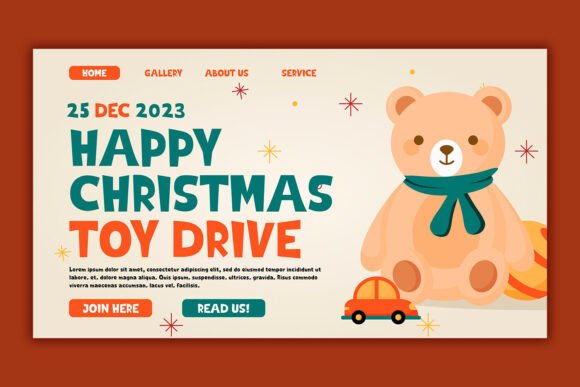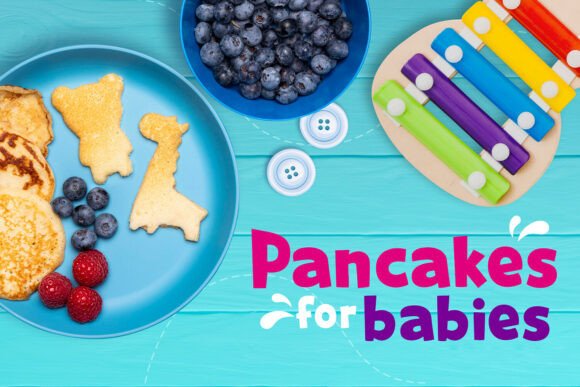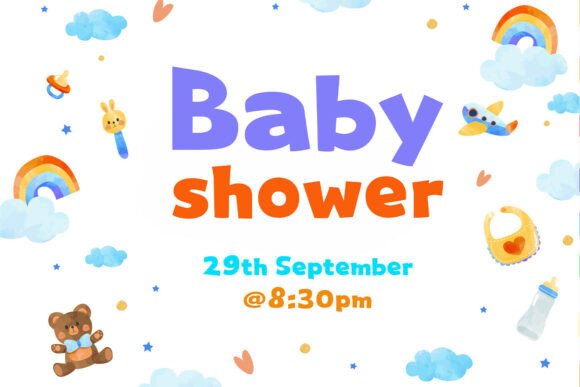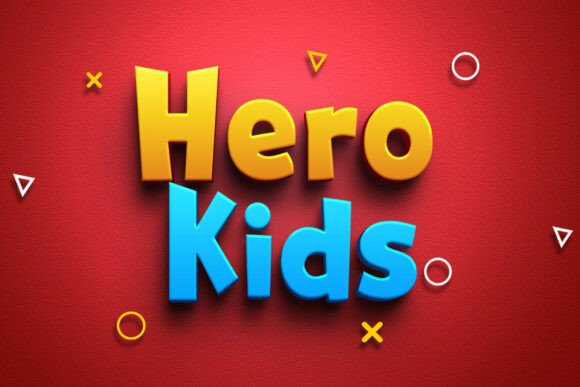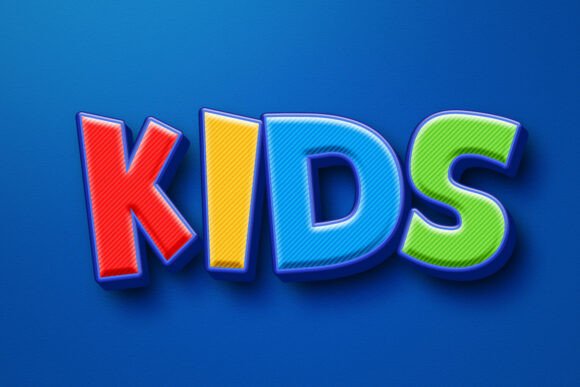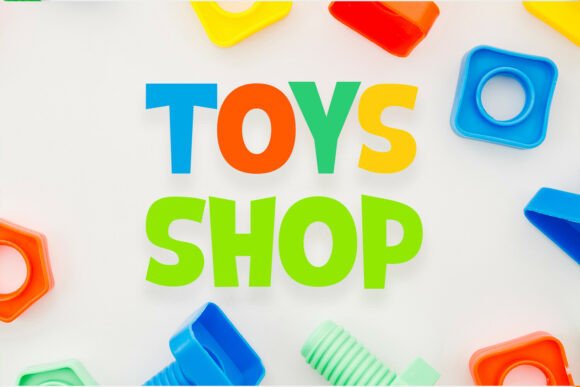
Unleashing the Fun with Jompy Font
Have you ever stumbled upon a font that instantly sparks your creativity and makes you want to dive into a new design project? For many designers, this moment of inspiration is what drives them to create something truly special. And for those who love playful typography, the Jompy Font is sure to bring a smile to their face. With its bold, chunky design and lively rhythm, this font is the perfect addition to any high-quality design project.
Whether you’re working on a creative project that requires a free download or need a versatile design resource for your next branding campaign, Jompy Font is an excellent choice. Its transparent background and vibrant letterforms make it ideal for social media graphics, colorful packaging, and kids-themed designs. As a valuable asset for designers, Jompy Font delivers impact while staying friendly and approachable, making it a must-have in any design toolkit.
Key Features of Jompy Font
- Unique, hand-drawn design with a high quality aesthetic, perfect for creative projects requiring a personal touch.
- Features a large character set, including uppercase and lowercase letters, numbers, and special characters, making it ideal for a variety of creative projects.
- Designed to be highly legible, even at small font sizes, ensuring that your message is conveyed clearly and effectively.
As a designer, I’m always on the lookout for high-quality design resources to elevate my creative projects. Recently, I stumbled upon the Jompy Font, which has been making waves in the design community. After putting it through its paces, I’m excited to share my honest review with you.
What works well: ✨ The Jompy Font has a unique, playful style that’s perfect for adding a touch of whimsy to your designs. It’s also incredibly versatile, making it suitable for a wide range of creative projects, from branding to editorial content.
What doesn’t work so well: ⚠️ While the Jompy Font is a solid addition to any design resource library, it may not be the best choice for more formal or professional projects. Its playful style can come across as too casual or unrefined in certain contexts.
Overall, I’m impressed with the Jompy Font’s potential and would definitely recommend it to designers looking to add some creativity and flair to their projects. With a bit of caution and consideration for your specific design needs, this font can be a valuable addition to your toolkit.
Jompy Font is a versatile design resource that can be used in a variety of creative projects, including logos, branding materials, and marketing materials. It is particularly useful for creating a unique and eye-catching design, and can be used in conjunction with other design elements, such as transparent background images, to add depth and interest to a design.